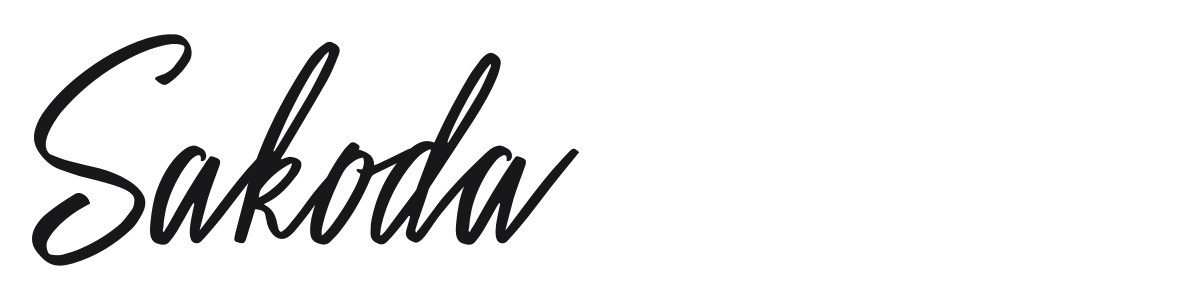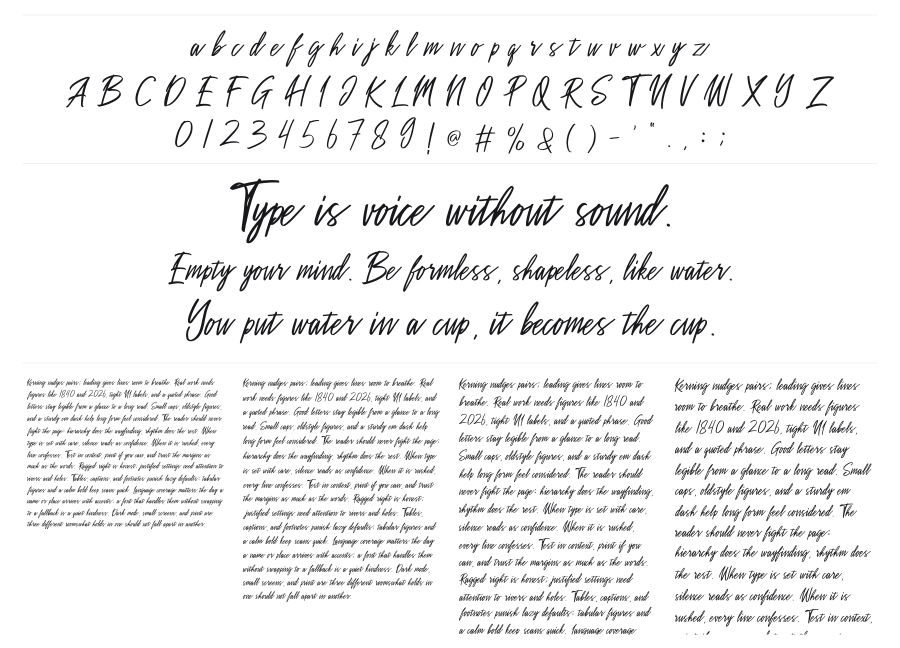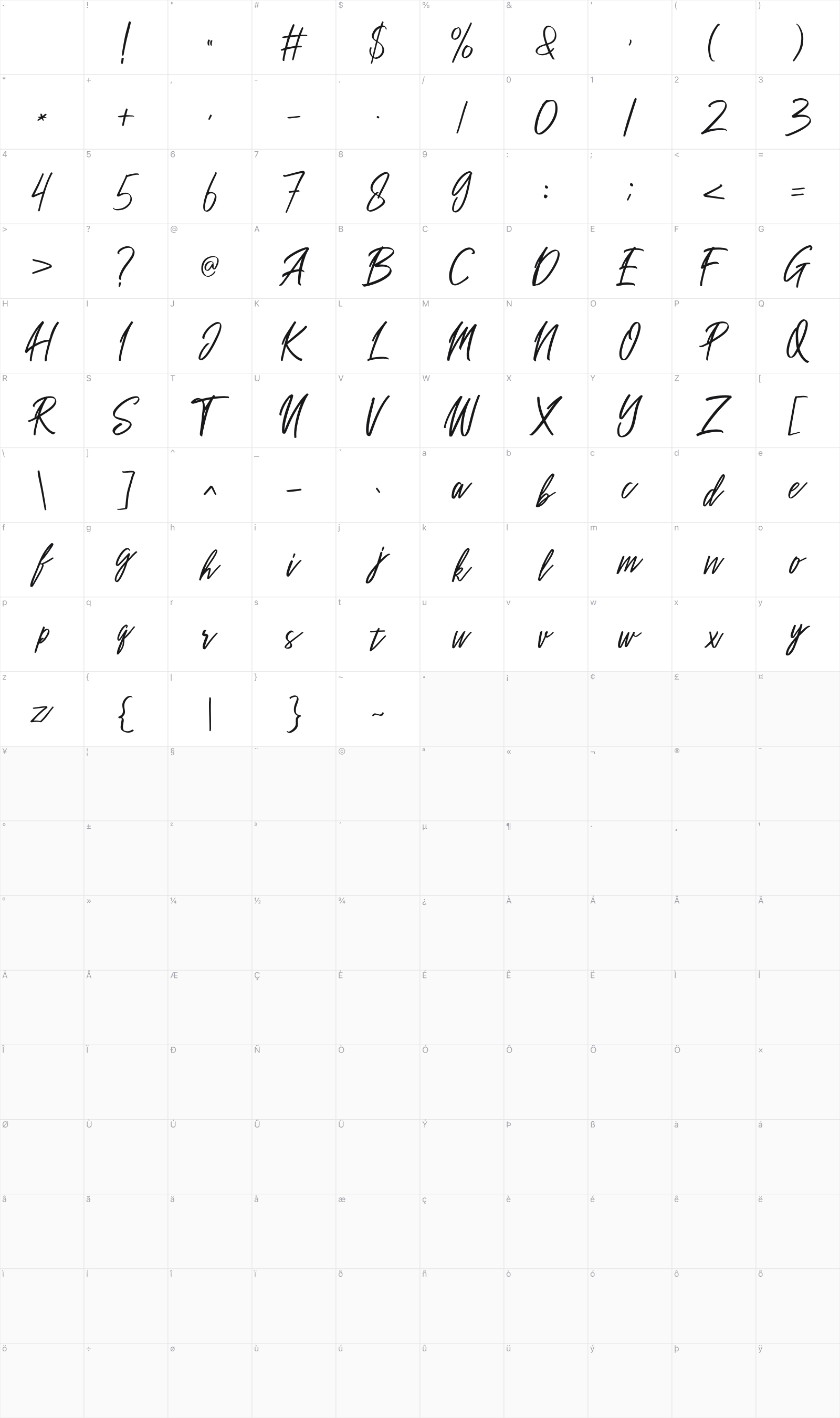
Sakoda
Sakoda is a casual connected script from Indotitas Studio with loose, flowing strokes and a natural handwritten rhythm. Consistent rightward lean and looping character connections give it an energetic, spontaneous feel without tipping into grunge or formality. It works well at large sizes for logos, packaging, and lifestyle branding.